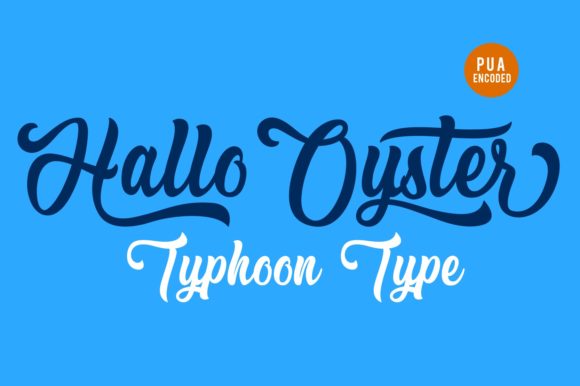
Step into the world of enchanting scripts with Hallo Oyster Font, a creation of Typhoon Typeâ„¢ - Suthi Srisopha. Let your creativity blossom as you explore the depths of this unique handwritten font. Designed to captivate and inspire, Hallo Oyster is a true masterpiece, waiting to transform your digital designs into works of art.
With its bold strokes and elegant curves, Hallo Oyster exudes a sense of individuality and charm. Each letter is meticulously crafted to convey emotion and personality, adding a touch of magic to your words. Whether you're designing logos, crafting invitations, or expressing yourself through social media, Hallo Oyster will make your creations shine.
Immerse yourself in a world of endless possibilities. Hallo Oyster's versatility knows no bounds, effortlessly adapting to a myriad of styles and themes. From whimsical illustrations to sophisticated branding, this font will elevate your designs, making them stand out from the crowd.
Dare to embrace the beauty of imperfection. Hallo Oyster's organic flow and natural charm celebrate the beauty of handwritten art. Its slightly slanted characters and varying line weights create a dynamic and engaging visual experience that will leave your audience spellbound.
Hallo Oyster is more than just a font; it's an invitation to unleash your creativity and make a statement. With its captivating presence, this script will transform your designs into enchanting stories that resonate with your audience. Embrace the power of Hallo Oyster and let your imagination run wild.